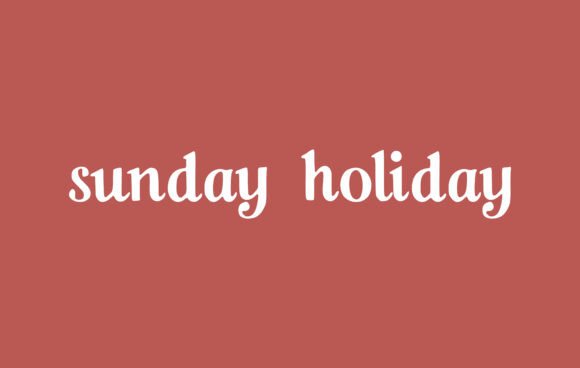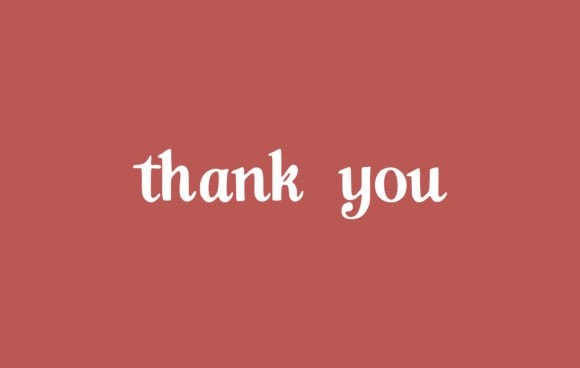
Daphne Font: The Ultimate Handwritten Font for Creative Designs
Are you looking for a font that can add a touch of romance and elegance to your designs? Look no further than the Daphne font. This authentic handwritten font is expertly designed to capture the hearts of designers and crafters alike. With its unique blend of sophistication and playfulness, Daphne font is the perfect choice for a wide range of creative projects.
What Makes Daphne Font So Special?
Daphne font is more than just a beautiful font – it’s a design statement. With its romantic touch and authentic handwritten feel, it’s sure to elevate your designs to the next level. Whether you’re working on a magazine headline, social media post, branding project, wedding invitation, or card, Daphne font is the perfect choice. Its legibility and versatility make it an excellent option for both title and body text.
Key Features of Daphne Font
- Authentic Handwritten Feel: Daphne font is designed to mimic the look and feel of handwritten text, giving your designs a personal and unique touch.
- Romantic Touch: With its elegant and sophisticated design, Daphne font is perfect for projects that require a touch of romance and whimsy.
- Legible and Versatile: Daphne font is designed to be easy to read and versatile, making it perfect for use as both title and body text.
- Wide Range of Uses: From magazine headlines to social media posts, branding projects to wedding invitations, Daphne font is the perfect choice for a wide range of creative designs.
Why Designers and Crafters Love Daphne Font
Designers and crafters love Daphne font for its unique blend of style and functionality. Here are just a few reasons why:
How to Use Daphne Font in Your Designs
Using Daphne font in your designs is easy. Here are a few tips to get you started:
- Pair it with Other Fonts: Daphne font pairs well with a wide range of other fonts, making it easy to create unique and interesting combinations.
- Experiment with Colors: Daphne font looks great in a wide range of colors, so don’t be afraid to experiment and find the perfect hue for your design.
- Use it for Headlines and Body Text: Daphne font is legible and versatile, making it perfect for use as both headlines and body text.
In conclusion, Daphne font is a must-have for any designer or crafter looking to add a touch of romance and elegance to their designs. With its authentic handwritten feel, romantic touch, and versatility, Daphne font is the perfect choice for a wide range of creative projects. Whether you’re working on a magazine headline, social media post, branding project, wedding invitation, or card, Daphne font is sure to elevate your designs to the next level.